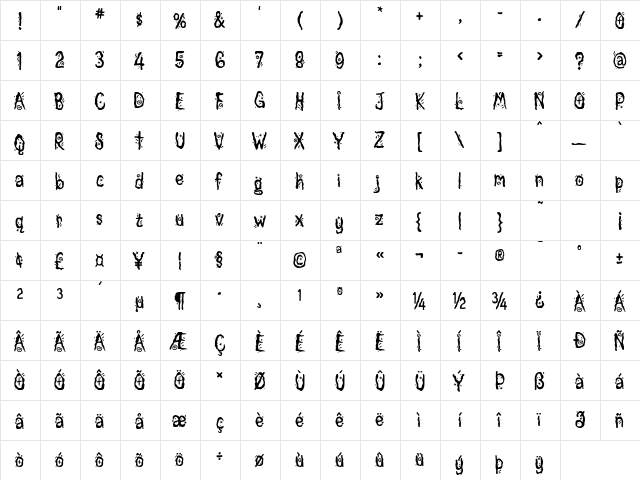
Magician Regular Font Preview
Magician Regular
Design Context for Magician Typeface
Magician is a composed and adaptable typeface that performs quietly and consistently across a wide range of design contexts.